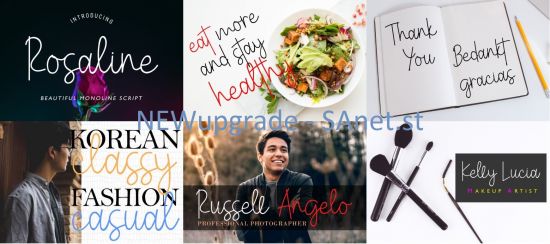
DesignOptimal - Rosaline Font
Rosaline is a playful and fancy script font with a serious vibe. Use it to add an authentic charm to any design project!